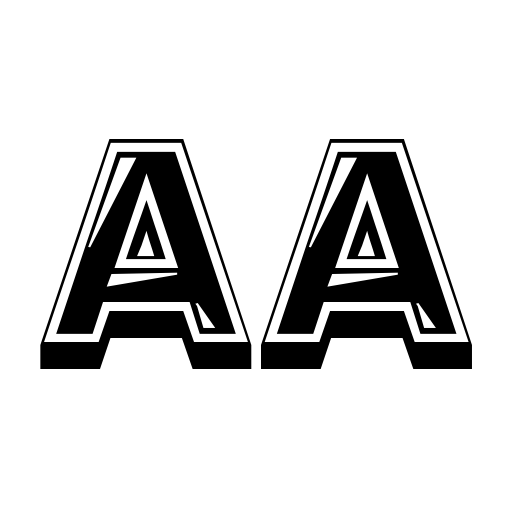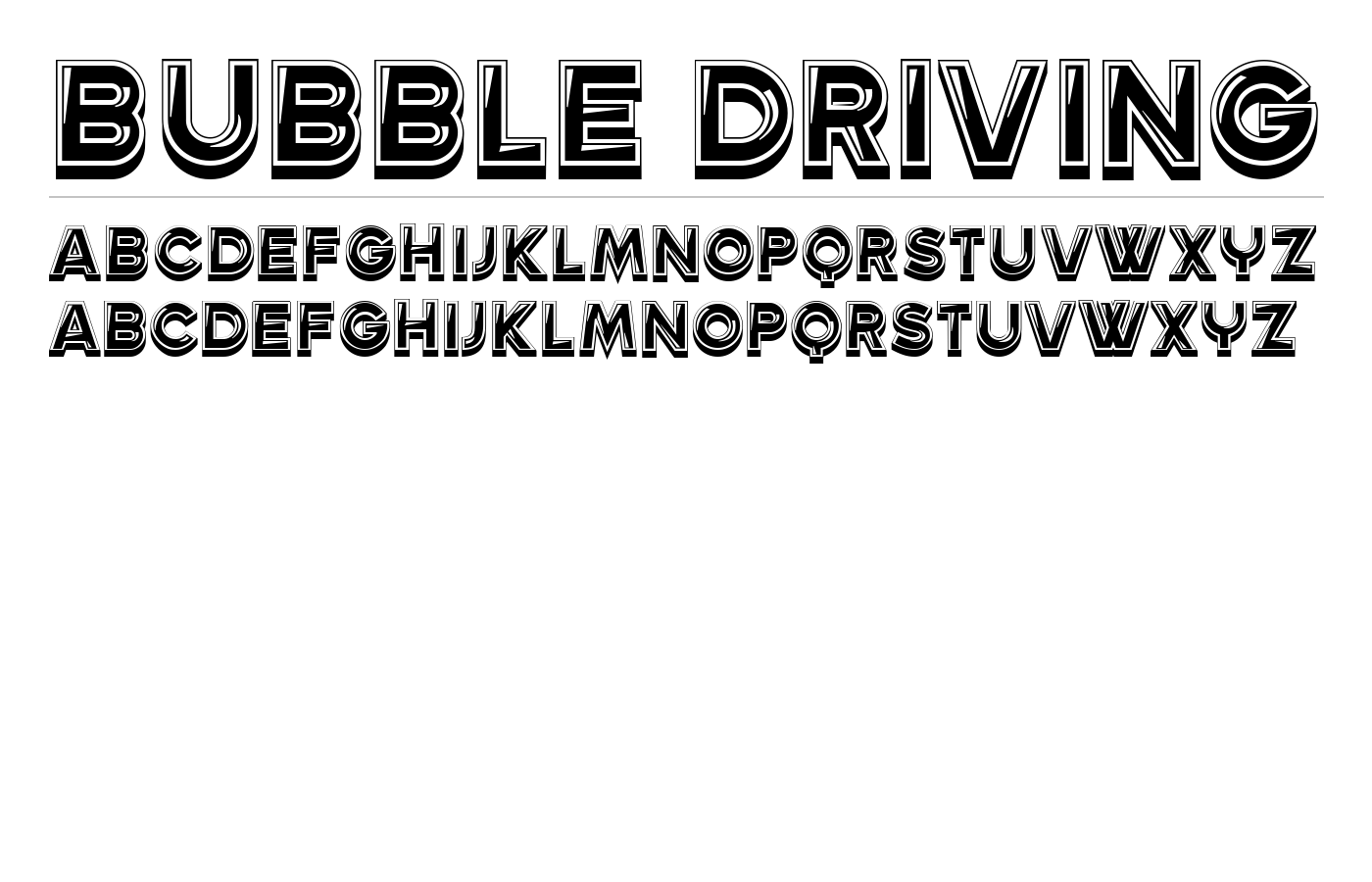
Bubble Driving is a bold, geometric sans serif font with a playful retro vibe created by its layered, 3D shadow effect and rounded, bubble-like shapes. Its uppercase-only style features crisp lines and moderate contrast between thick strokes and white highlights, ideal for eye-catching headlines and fun, energetic branding. This font works great for posters, logos, and packaging aimed at a youthful, lively audience looking for a dynamic and approachable feel.
Bubble Driving Font
About Bubble Driving Font